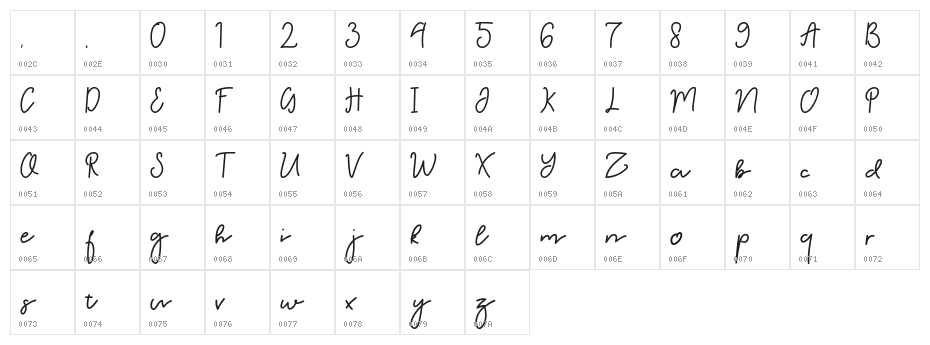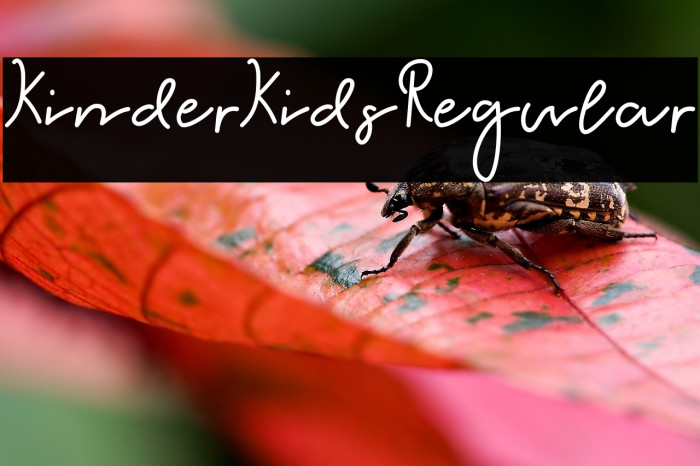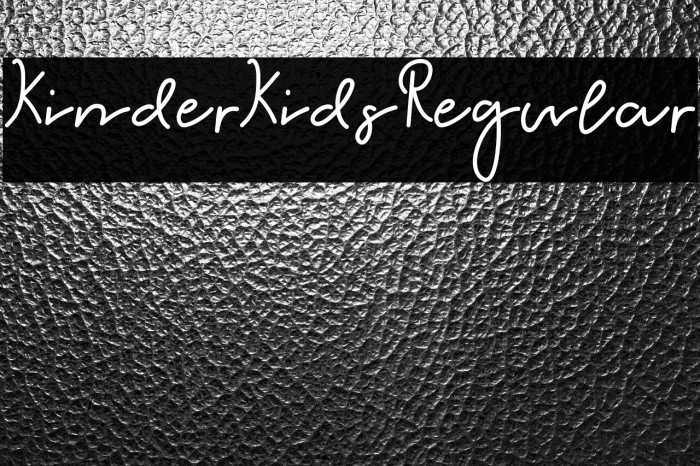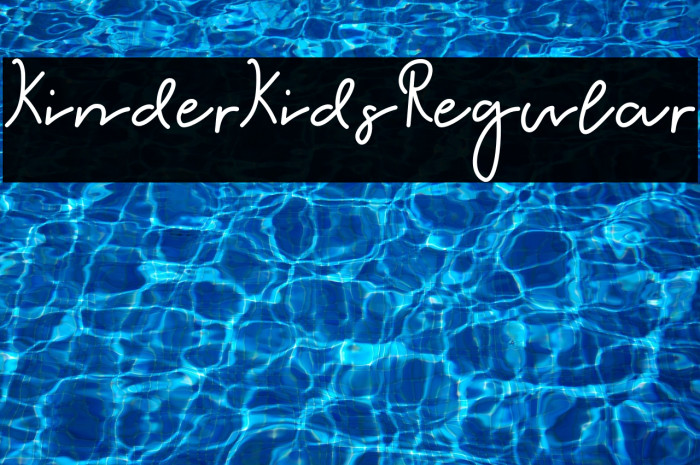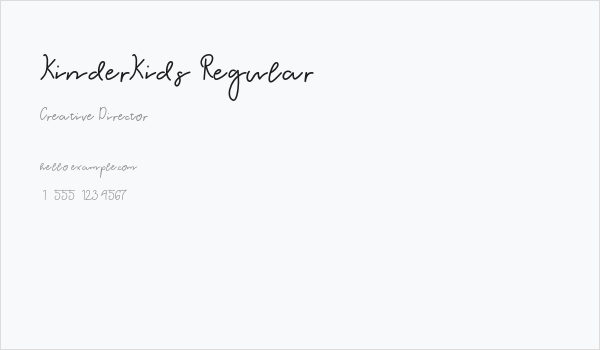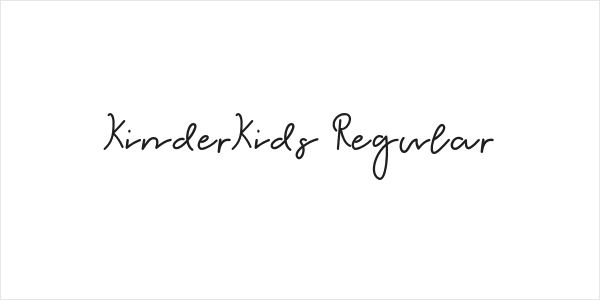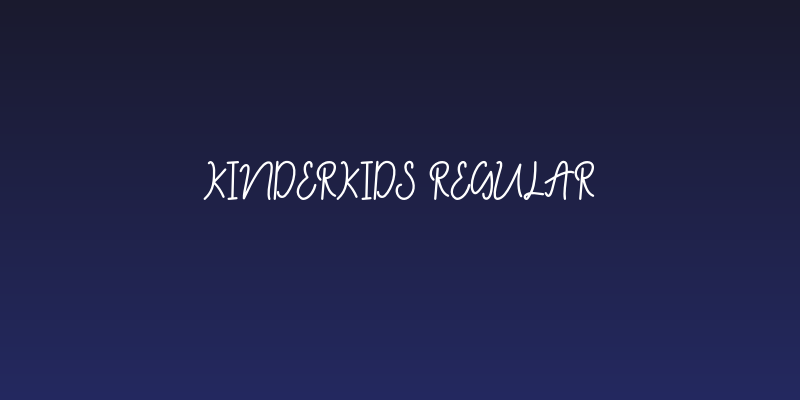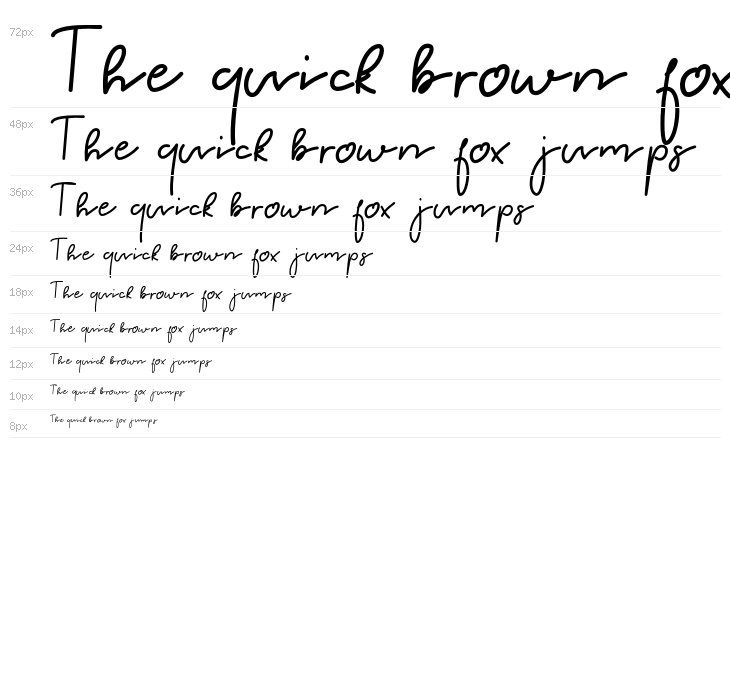
KinderKids-Regular Font
KinderKids-Regular Description
This playful and whimsical font features a handwritten style that exudes a sense of fun and creativity. The letters are characterized by their fluid, flowing lines and slightly irregular shapes, giving them a charming, informal appearance. The uppercase letters are bold and prominent, while the lowercase letters maintain a consistent style with a slightly more delicate touch. The numbers are clear and easy to read, matching the overall playful aesthetic. This font is perfect for projects that require a personal, friendly touch, such as children's books, greeting cards, or playful branding.
| Proposed Projects | Ideal for children's books, greeting cards, playful branding, and creative projects. |